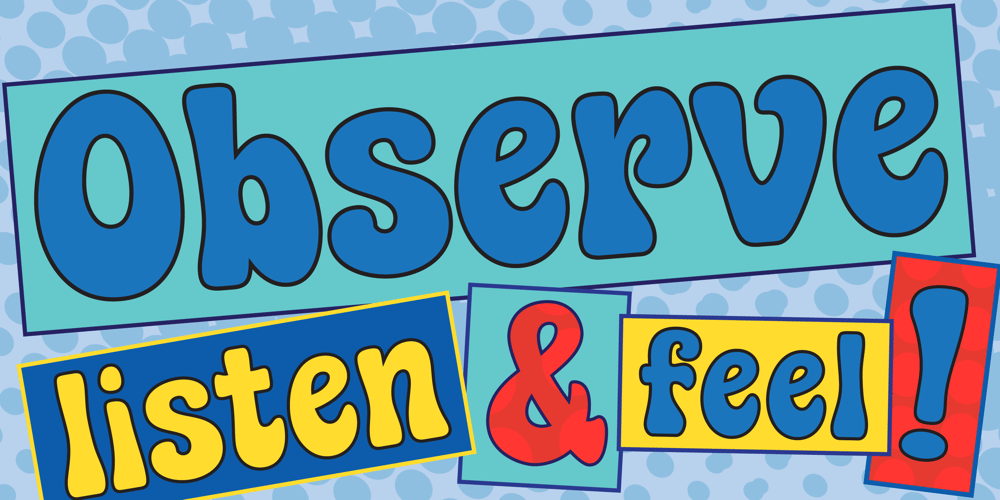
Janice
Janice font
Janice Font Family was designed by Rebecca Alaccari and published by Canada Type. Janice contains 1 styles and family package options. Janice is a revival and expansion of a 1960s Mecanorma film type called Putty Bold. It’s thick, flowing, happy and oozes psychedelia. Unlike many art nouveau/hippy faces of the era, this font comes with a lowercase that expands its functionality to quite a few applications, like design aimed at kids and young adults. It’s also one of those fonts that feel right at home being warped, scaled and manually squeezed for packaging and poster design. Janice comes with over 400 glyphs. It contains a few stylistic alternates and support for the majority of Latin languages.